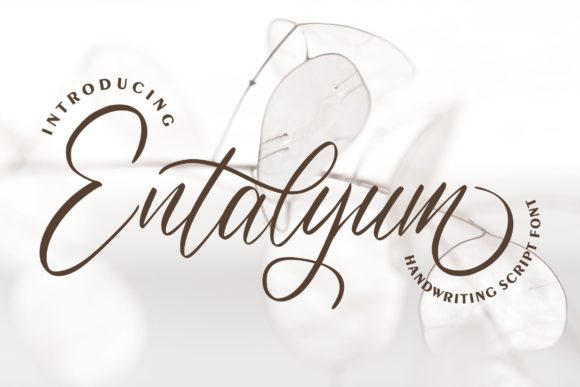
Introducing Entalyum Font - A handwritten masterpiece that captivates and enchants. Entwine your designs with charm, elegance, and a touch of whimsy. This font, crafted by the skilled hands of Vunira, is a treasure trove of beauty and creativity.
Step into a realm of endless possibilities with Entalyum Font. Its delicate flow and unique character bring life to every letter, adding a personal touch to logos, branding, and quotes. Let your words dance with grace, leaving a lasting impression on all who behold them.
With Entalyum Font, your designs will blossom into works of art. Its graceful strokes and charming curves evoke a sense of warmth and sophistication, perfect for invitations, cards, and any project seeking a touch of elegance. Embrace the magic of Entalyum and watch your creations transform into captivating masterpieces.
Embark on a creative journey with Entalyum Font, your perfect companion for crafting Christmas designs. Its festive spirit and cheerful vibe add a touch of enchantment to your holiday creations. Spread joy, love, and cheer through your designs, capturing the magic of the season. Let Entalyum Font be your guide as you create stunning Christmas cards, invitations, and decorations that spark wonder and delight.
Unleash the full potential of Entalyum Font and let your imagination soar. Its versatility extends to a wide range of design projects, from social media posts to website banners. Infuse your designs with a touch of uniqueness and style. With Entalyum Font, the possibilities are endless.